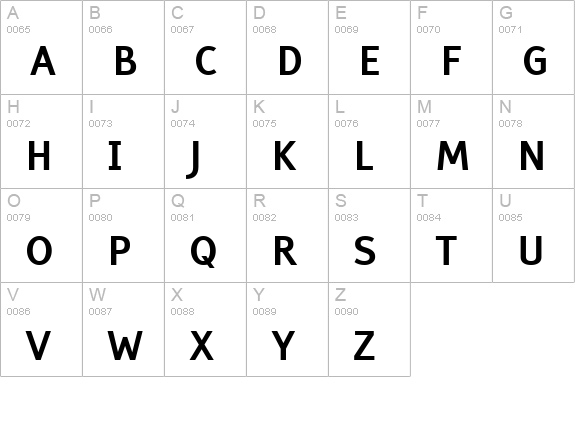
Tiresias Infofont Z Font Details
Introducing the remarkable Tiresias Infofont Z font, a striking typeface that effortlessly combines elegance with functionality. Designed to enhance readability and ensure optimal accessibility for individuals with visual impairments, this font is a true testament to the power of inclusive design. With its clean lines and carefully crafted letterforms, Tiresias Infofont Z offers a seamless reading experience across various platforms and devices. Each character is meticulously designed to provide maximum legibility, allowing readers to effortlessly absorb information without any hindrance. But what truly sets Tiresias Infofont Z apart is its accessibility features. This font has been specifically engineered to meet the needs of those with visual impairments, ensuring that every user can access information with ease. From its enhanced spacing and distinct letter shapes to its optimized character heights, Tiresias Infofont Z is a testament to the power of inclusive design. One of the most remarkable aspects of Tiresias Infofont Z is that it is freely available to download at FontsMarket.com. That's right, this exceptional font can be easily accessed by anyone who wishes to improve their reading experience or create an inclusive design. Whether you are a designer, a writer, or simply someone who appreciates the importance of accessibility, Tiresias Infofont Z is a must-have addition to your font collection. So, why wait? Embrace the power of inclusive design and enhance your projects with the remarkable Tiresias Infofont Z font. Download it for free at FontsMarket.com and unlock a world of improved accessibility and readability.